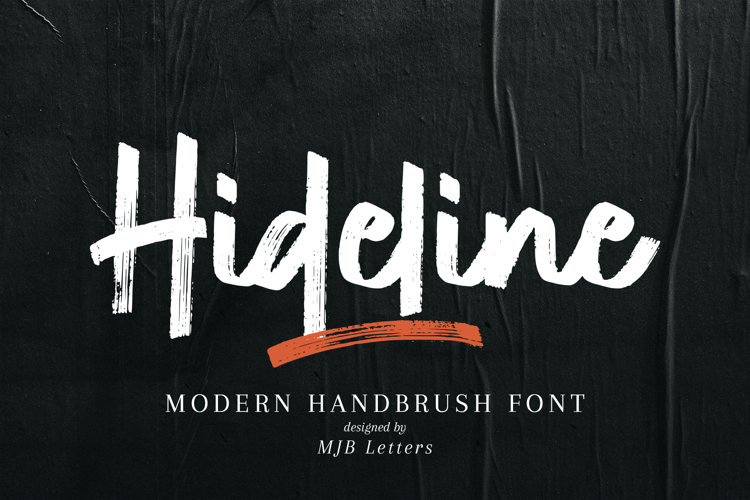
Hideline
Hideline Handwritten Brush Font is a bold and textured handwritten font that combines a natural, expressive feel with strength. Featuring bold strokes and an organic, handcrafted appearance, Hideline adds a dynamic character to branding, logos, posters, social media posts, packaging, and more, making any design stand out.
This versatile font works well across digital and print media, from large banners to detailed layouts, maintaining legibility and impact. Its bold brush style offers a unique, artistic flair, perfect for designers and creatives seeking a modern, energetic font to elevate their projects.